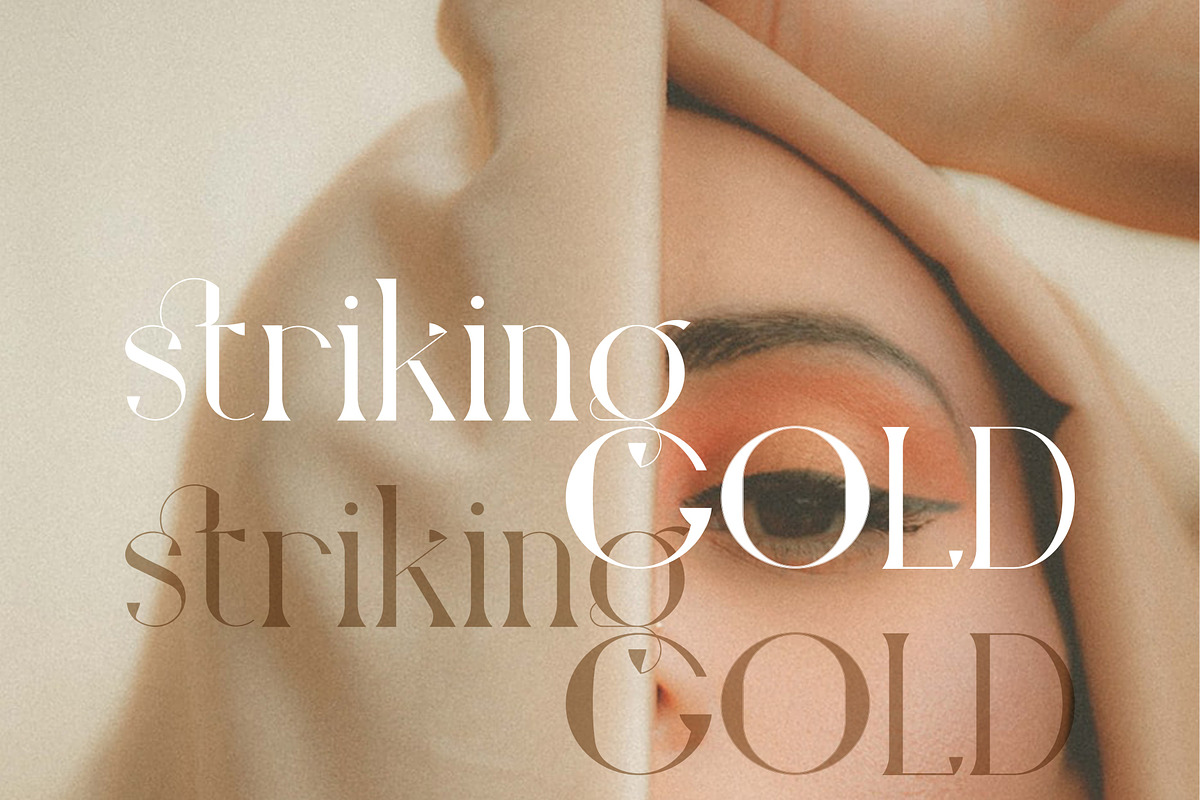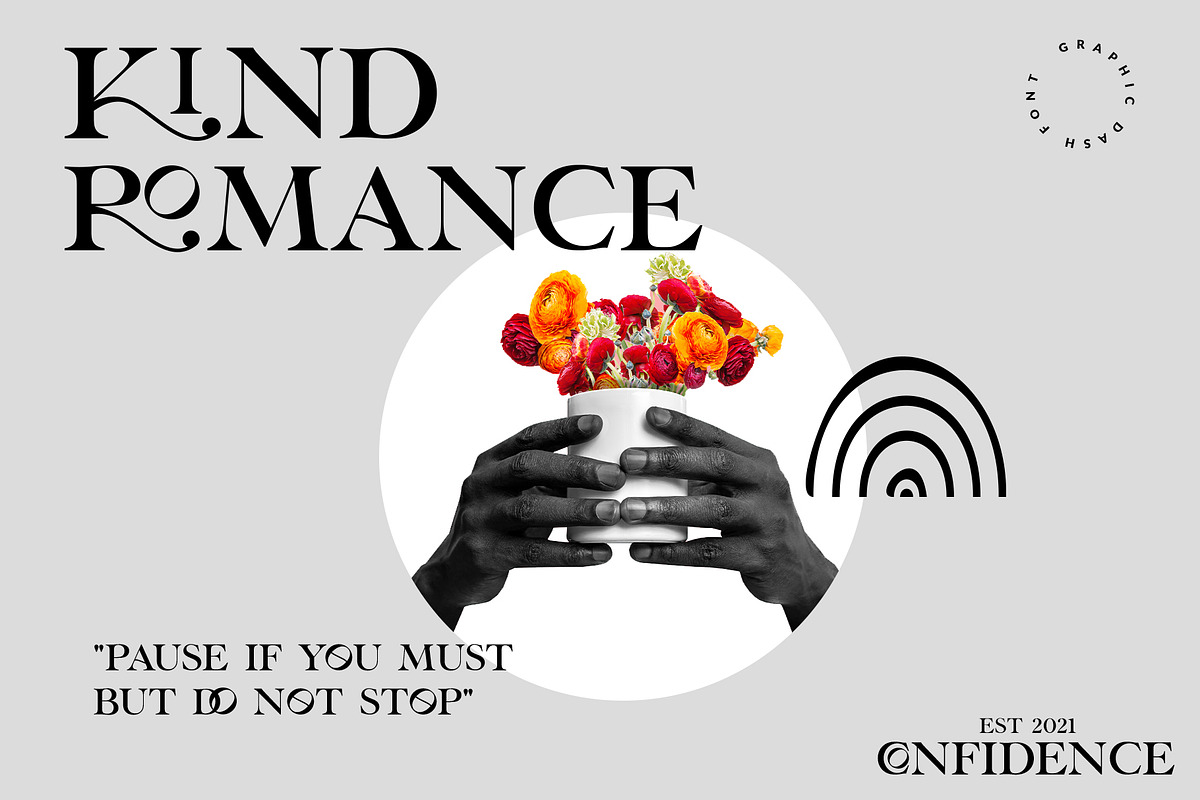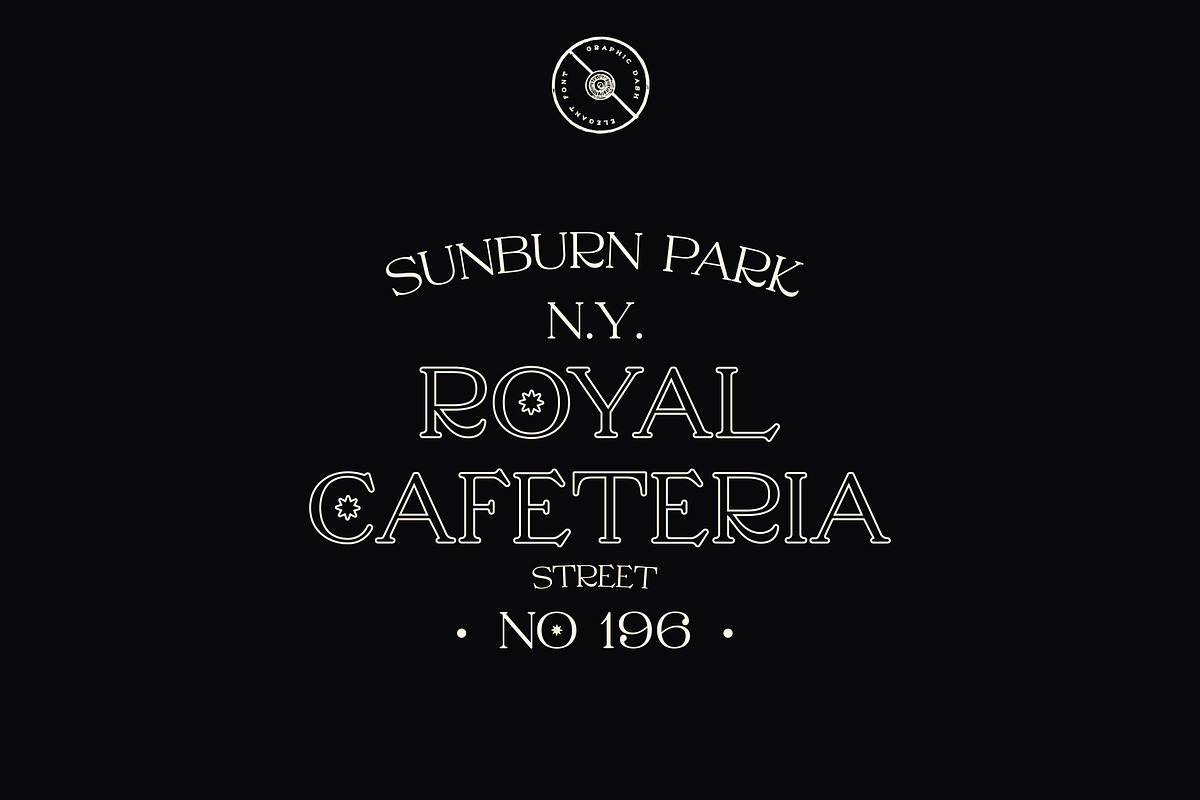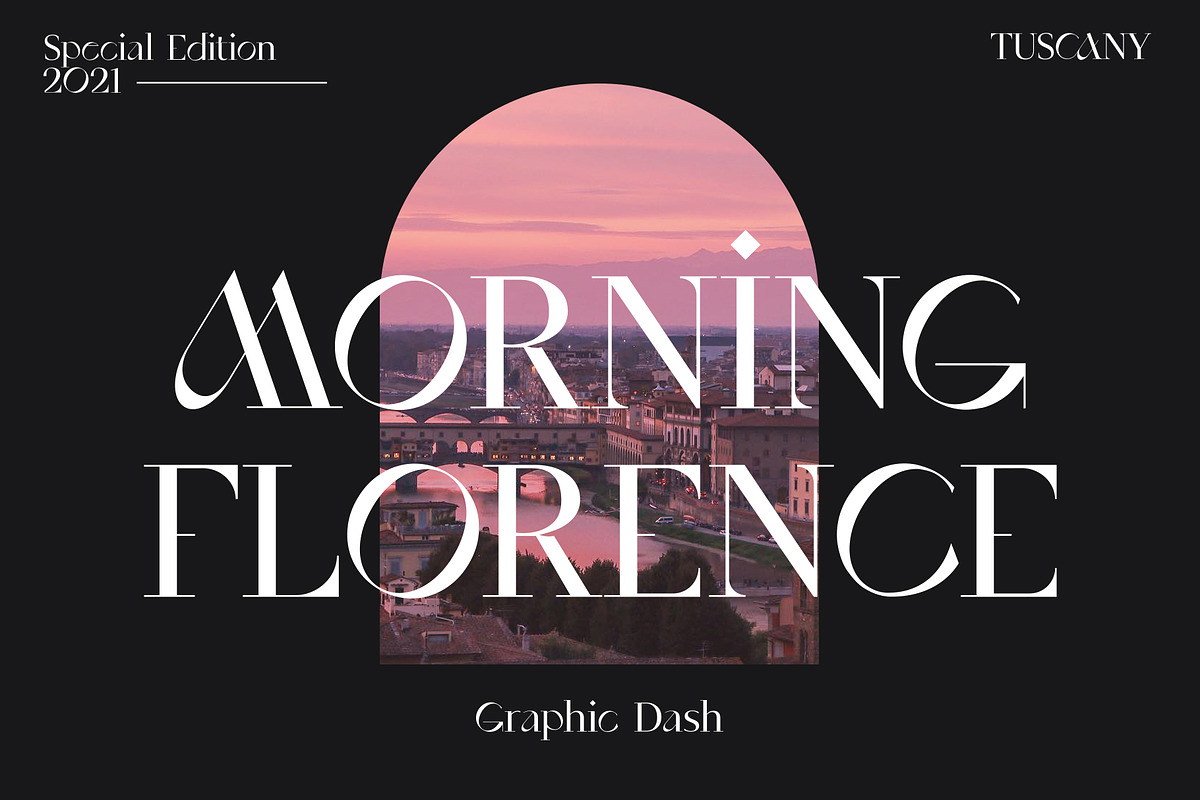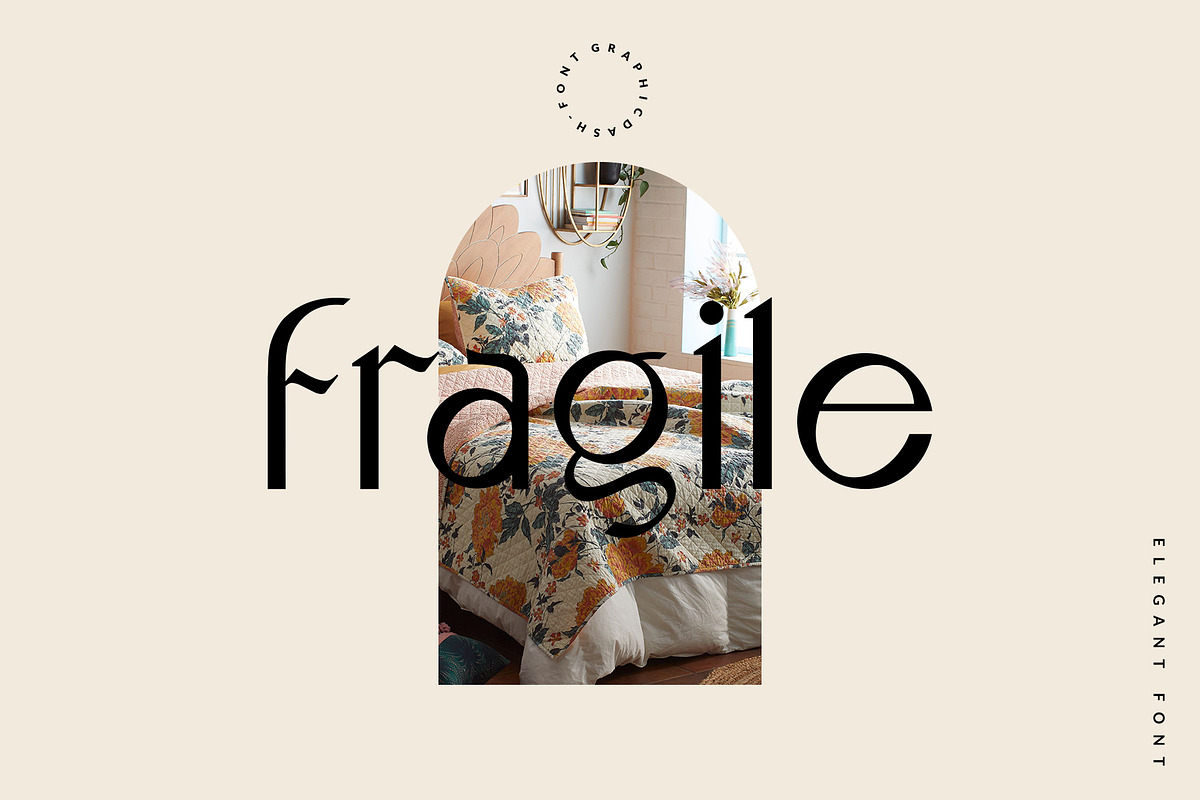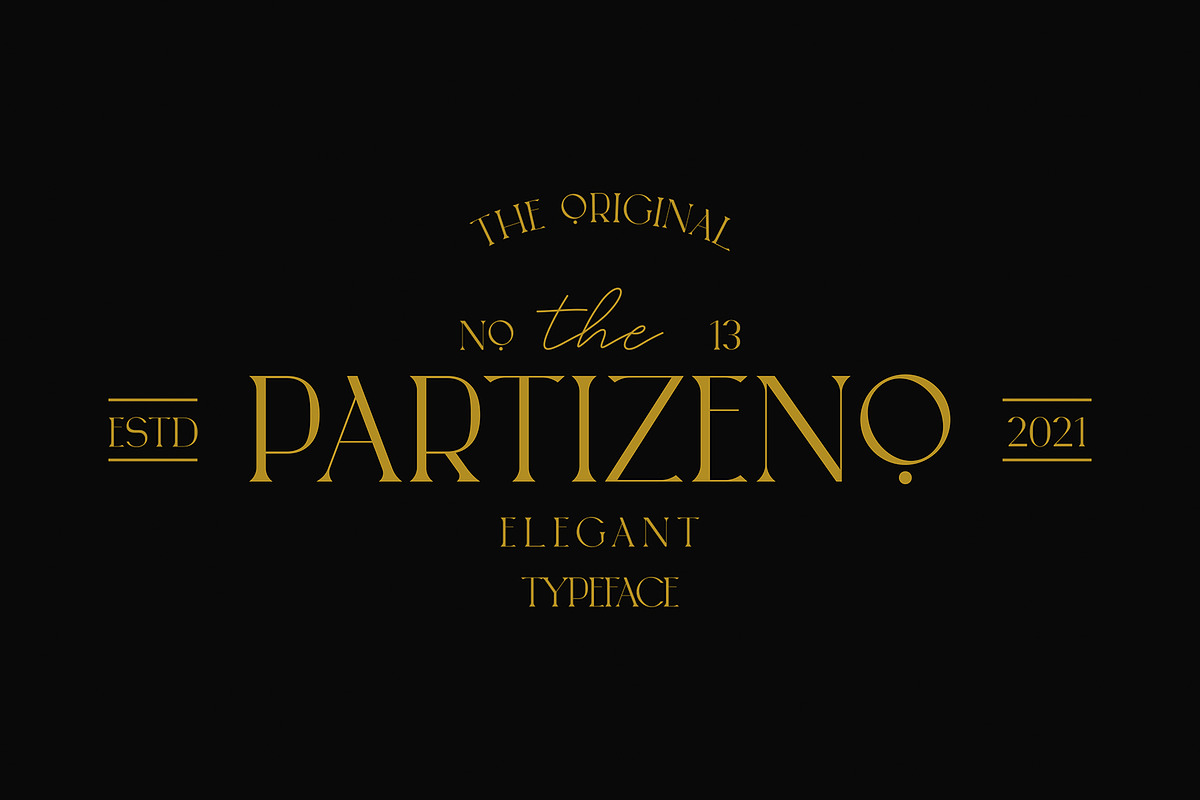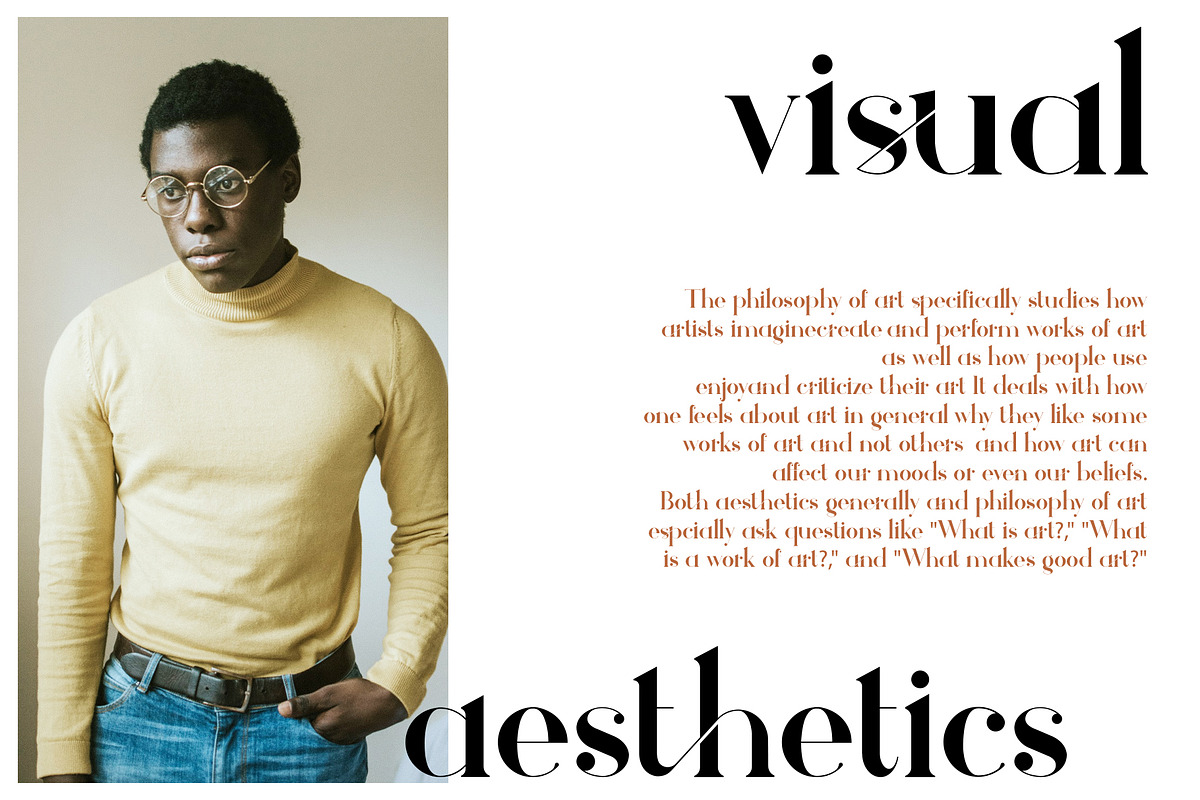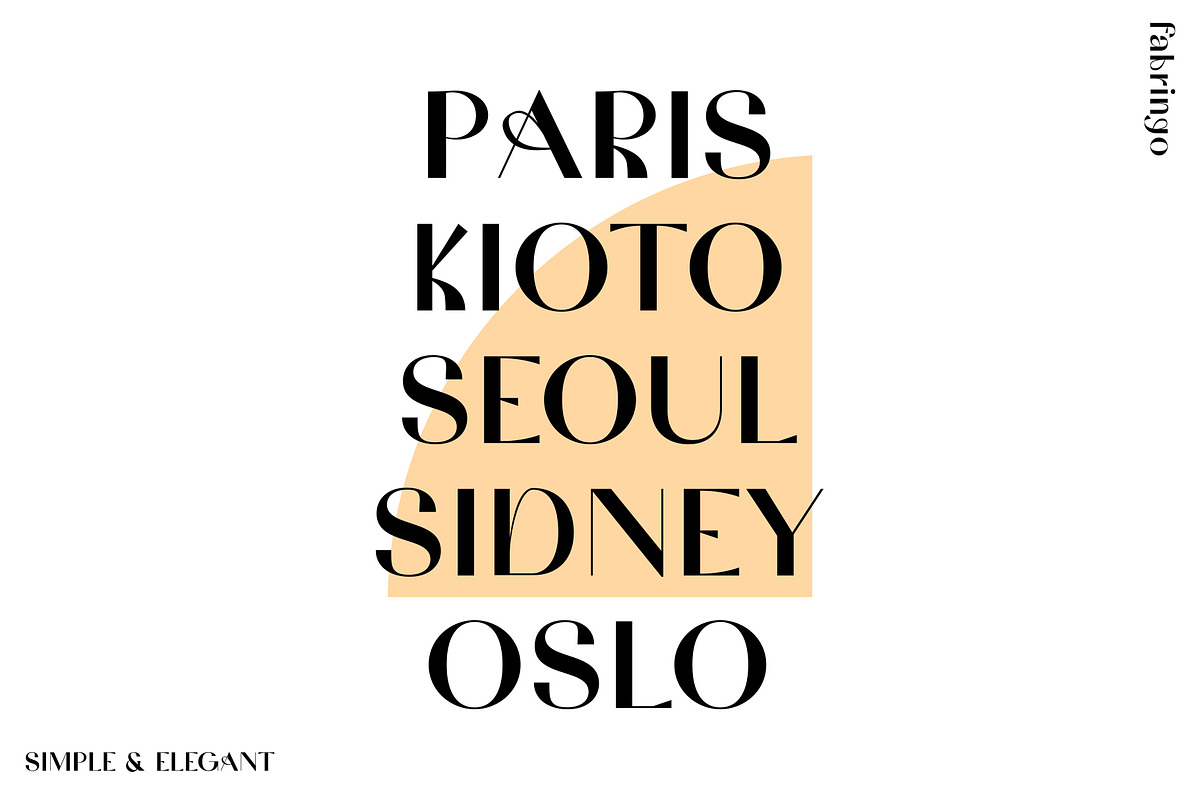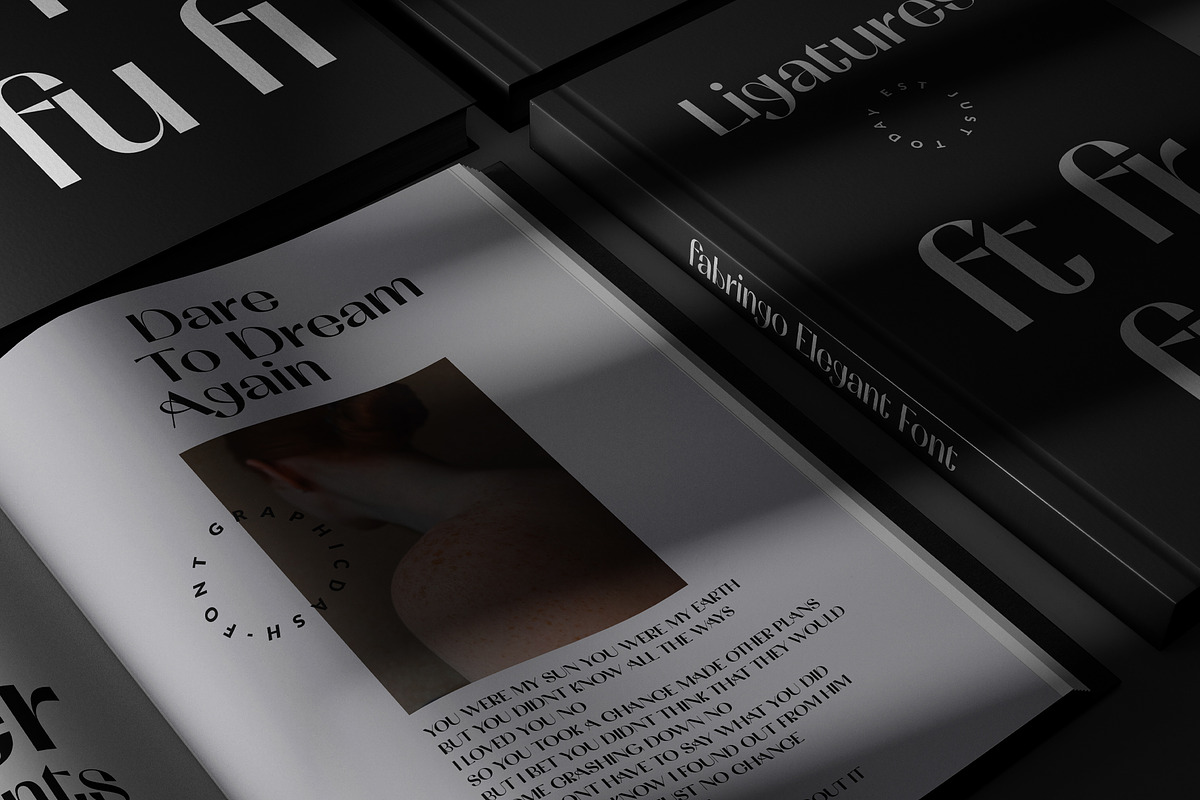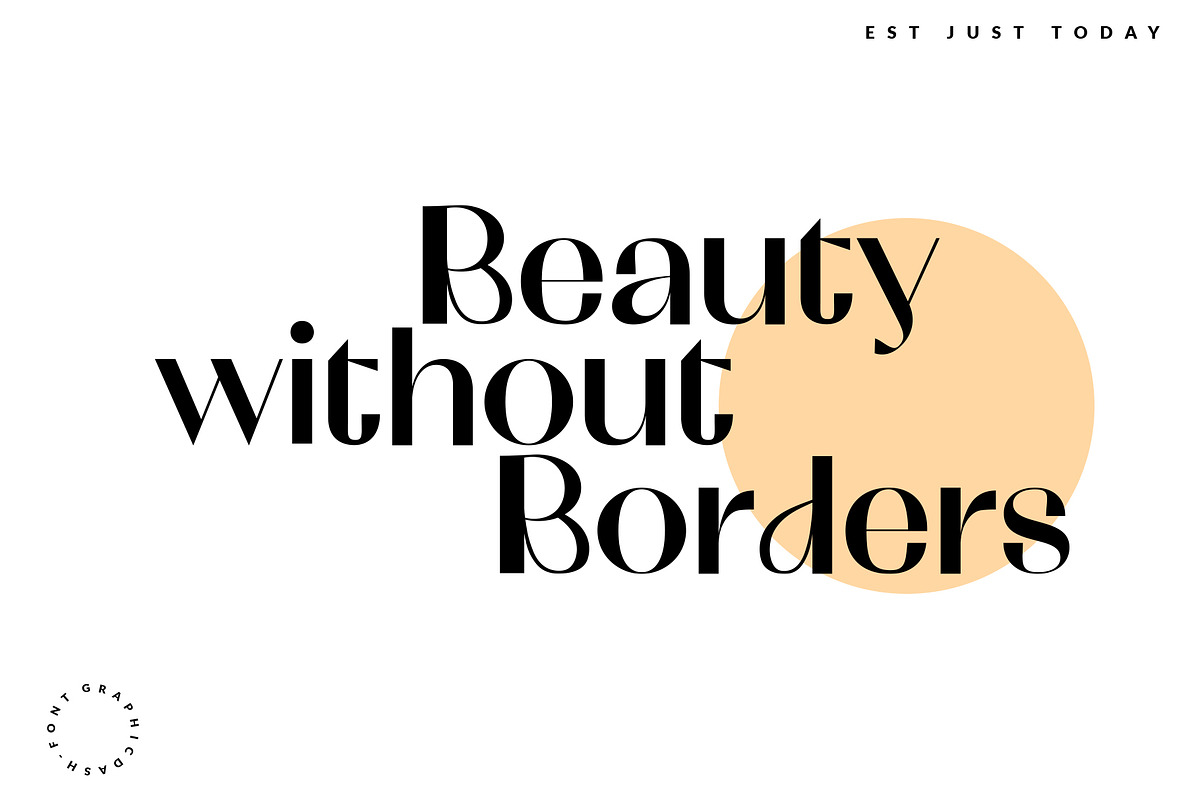
The Essential Font Bundle is perfect for many projects: logo, websites, invitations, social media, magazines, branding, wedding invitations, photography, quotes, blog header, advertisements, and more.
What's included in the bundle? Bellow you'll find more information about each font: